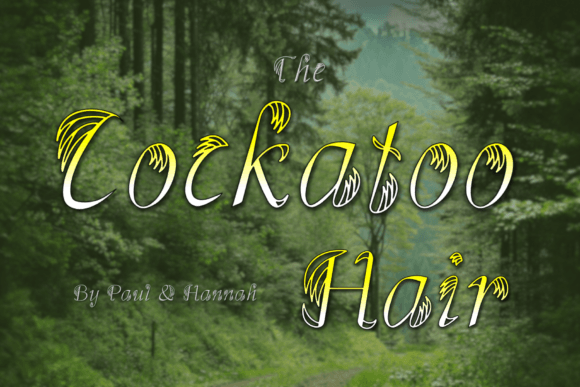
Unleashing Creativity with the Cockatoo Hair Font
Have you ever found yourself staring at a blank canvas, struggling to bring your artistic vision to life? As creatives, we’ve all been there – waiting for that perfect spark to ignite our imagination. For designers, the right font can be just that catalyst, elevating a project from ordinary to extraordinary.
Enter the Cockatoo Hair Font, a unique and captivating typeface that embodies the elegance of the majestic cockatoo’s crest. This charming font is more than just a visual representation – it’s a tool designed to inspire and enhance your creative expression. Whether you’re crafting a logo, designing a website, or creating a stunning poster, the Cockatoo Hair Font offers a distinctive flair that’s sure to captivate your audience.
As a valuable addition to your design arsenal, the Cockatoo Hair Font allows you to tap into its whimsical charm, adding a touch of personality to your projects. With its distinct features and versatility, this font is poised to become your go-to choice for unleashing your creativity and making a lasting impression.
Cockatoo Hair Font Key Features
- Font Family: Cockatoo Hair Font
- Character Set: Includes uppercase and lowercase letters, numerals, and various special characters
- Unique Characteristics: Distinctive, hand-drawn style with intricate details and expressive lines, ideal for creative and artistic applications
Cockatoo Hair Font Review
Overall, I found “Cockatoo Hair Font” to be an interesting and playful font. ✨ Its unique design and bold personality make it perfect for those looking to add some whimsy to their projects. The font’s best features include its:
- Expressive character shapes
- Contrasting line weights
- Curvy, flowing lines
However, there are some limitations to keep in mind: ⚠️ The font’s readability can suffer at smaller text sizes, and some characters may not render well in certain contexts. Additionally, the font’s bold personality can sometimes feel overwhelming, making it difficult to use in more subtle design contexts.
Overall, I would recommend “Cockatoo Hair Font” to designers who want to add a touch of personality to their work. While it may not be suitable for every project, it’s a great choice for those looking to create a bold and eye-catching design. Just be mindful of the font’s limitations and use it judiciously.
The Cockatoo Hair Font is ideal for creating playful, whimsical designs. Use it for:
– Children’s book illustrations
– Party invitations
– Handwritten-style fonts for quotes or phrases
Alternatives to “Cockatoo Hair Font” for Designers
Great Vibes is a beautiful, elegant script font ideal for designing wedding invitations, greeting cards, or any romantic theme. It’s a bit more refined than Cockatoo Hair Font, making it perfect for formal events or special occasions.
Comparison: Great Vibes Font is more polished and sophisticated compared to Cockatoo Hair Font’s playful, whimsical feel.
Pacifico is a beautiful, modern script font that’s perfect for designing beach-themed projects, menus, or even fashion labels. It’s a bit more laid-back and casual compared to Cockatoo Hair Font.
Comparison: Pacifico Font is more relaxed and beachy compared to Cockatoo Hair Font’s quirky, bohemian vibe.
Carolyna Pro is a stylish, elegant script font that’s perfect for designing luxury brands, high-end fashion labels, or any premium theme. It’s a bit more refined and sophisticated compared to Cockatoo Hair Font.
Comparison: Carolyna Pro Font is more polished and luxurious compared to Cockatoo Hair Font’s playful, carefree feel.
Alex Brush is a beautiful, elegant script font that’s perfect for designing wedding invitations, greeting cards, or any romantic theme. It’s a bit more refined and sophisticated compared to Cockatoo Hair Font.
Comparison: Alex Brush Font is more polished and elegant compared to Cockatoo Hair Font’s quirky, whimsical feel.
Creative Project Ideas Using Cockatoo Hair Font